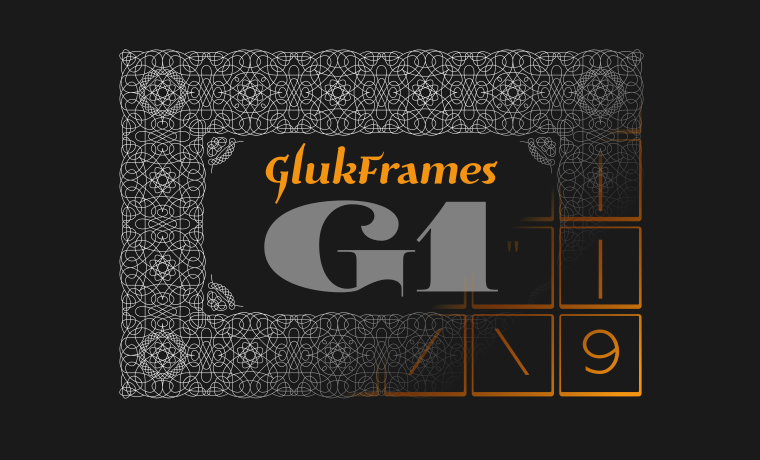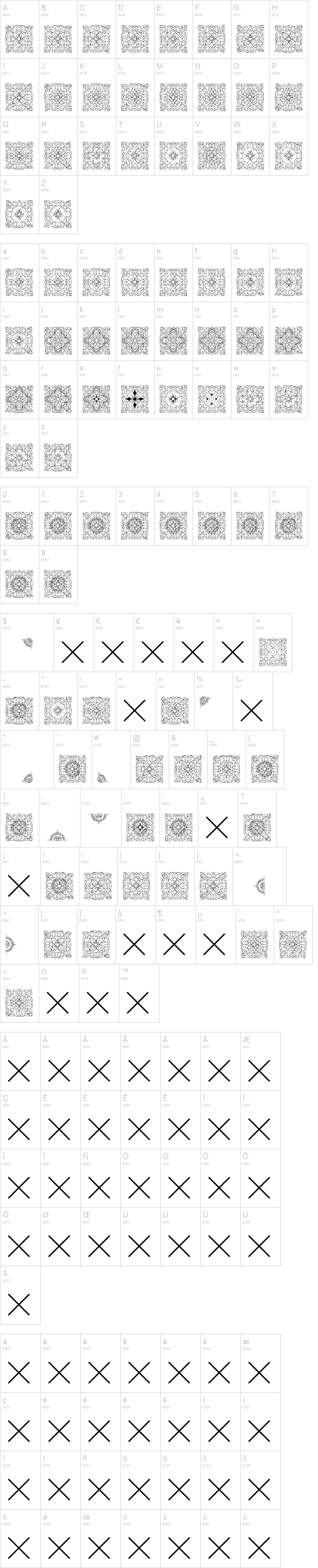
Note of the authorFont GlukFramesG1 is a set of Elements for creating Frames and Patterns in .otf Format. Full set of Elements, Examples of use and Tips You find in pdf. Attention: Experimental Set, correct work depend of Software Settings like: Linespacing, Text Alignment etc.